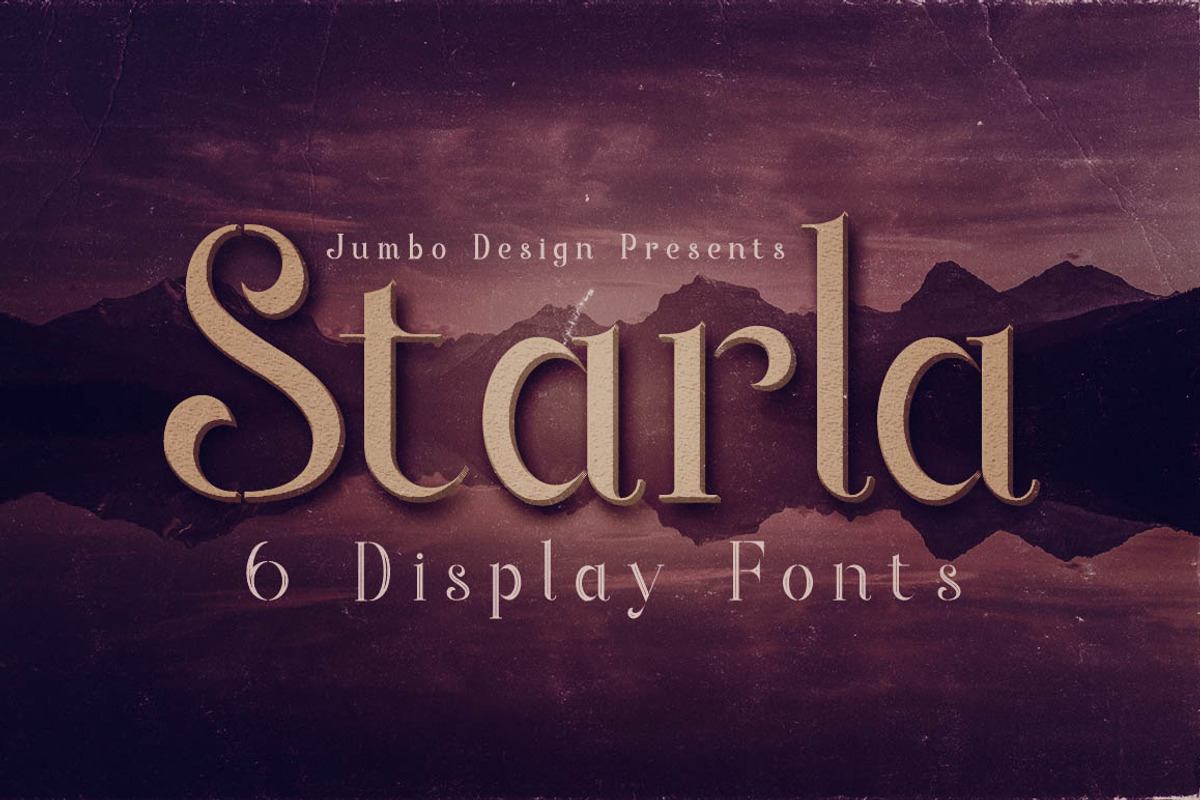
Shine bright in your designs with the Starla - Display Font Free Download — a modern and elegant typeface made to capture attention and elevate visual impact. With its stylish curves, sharp details, and confident structure, Starla is perfect for high-fashion branding, magazine titles, beauty product packaging, and luxurious web designs.
This display font brings together grace and strength, offering a versatile look that’s both glamorous and powerful. Whether you're designing a logo that stands out or a headline that turns heads, Starla adds that extra sparkle your typography needs.